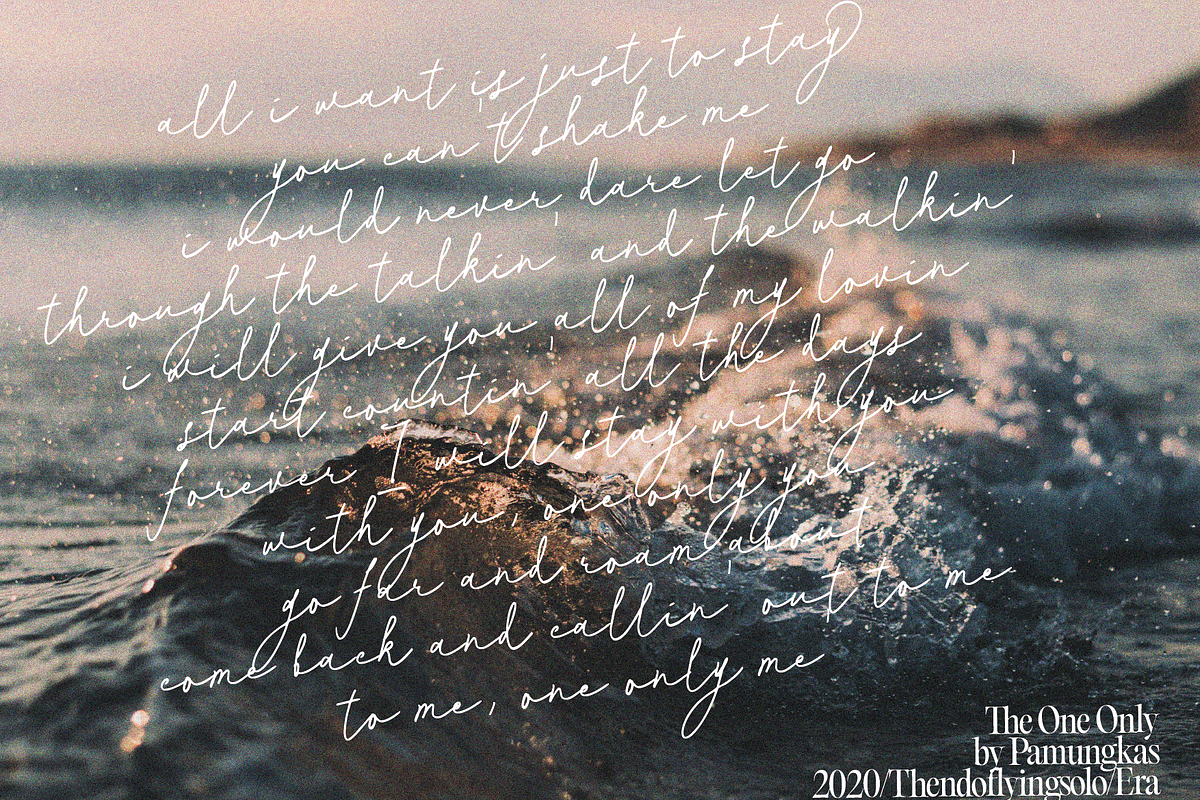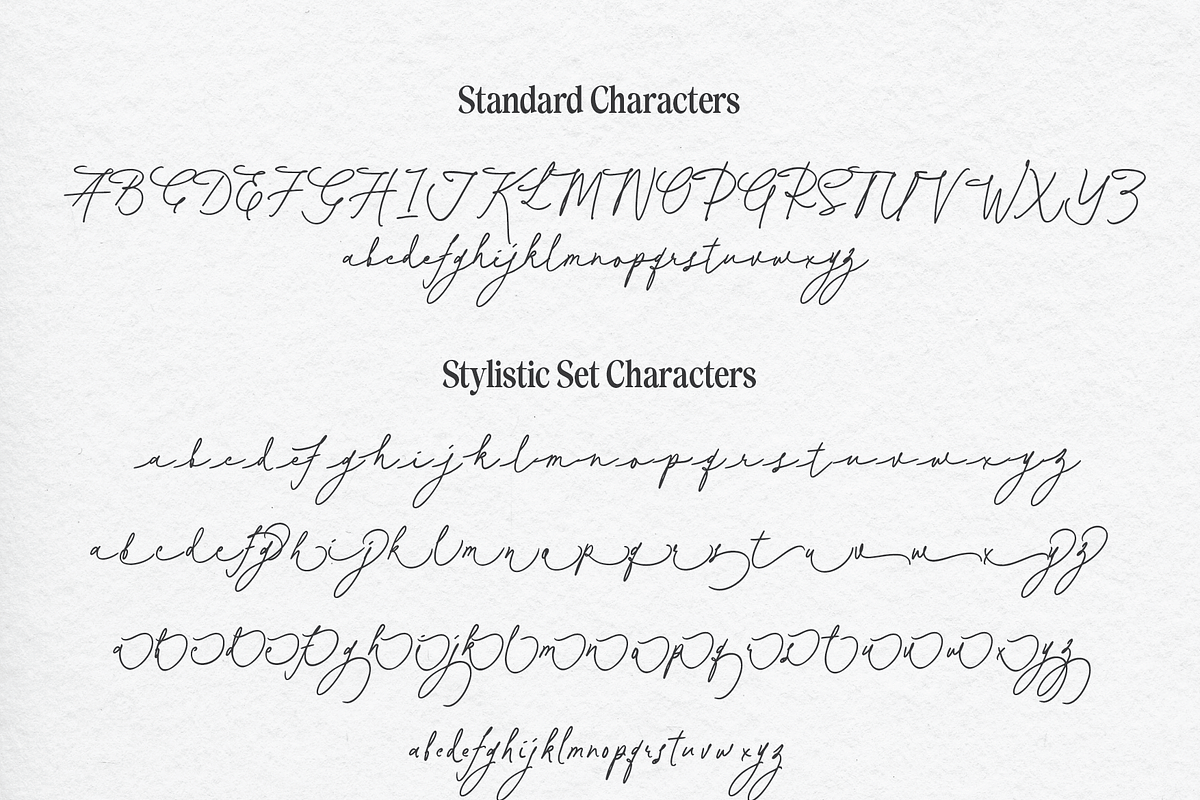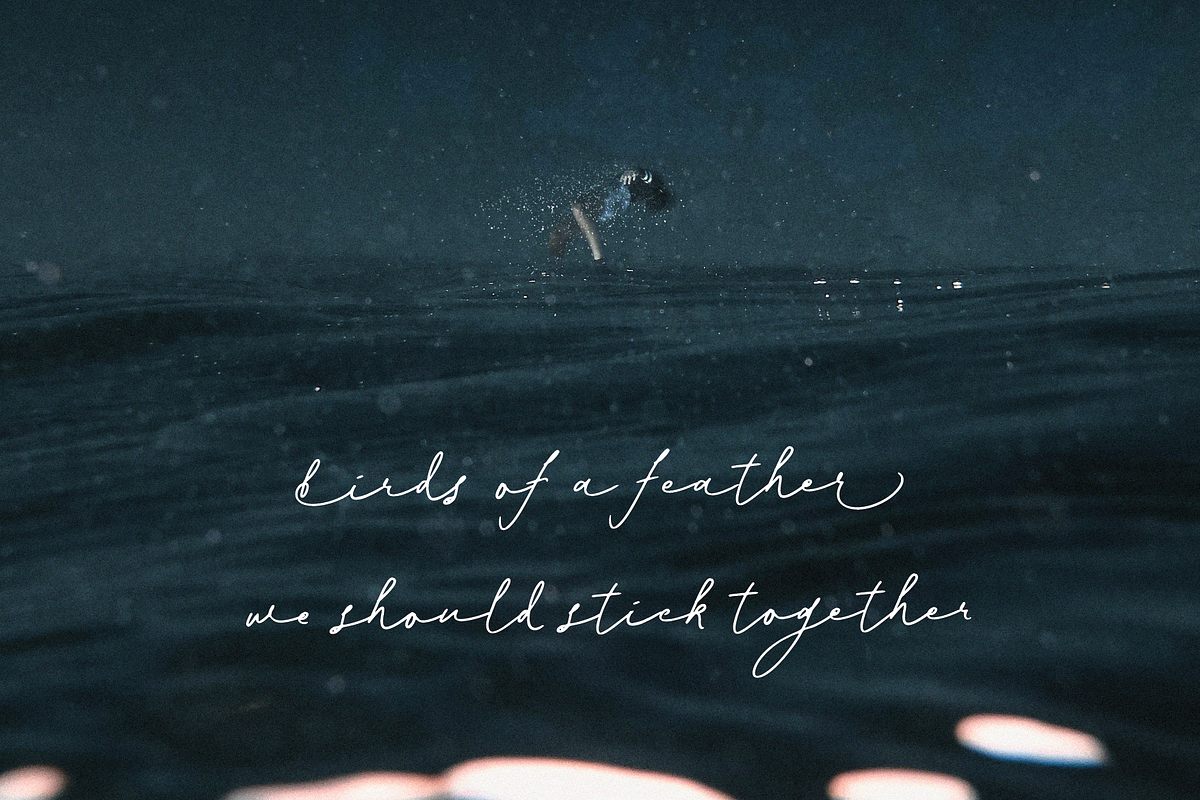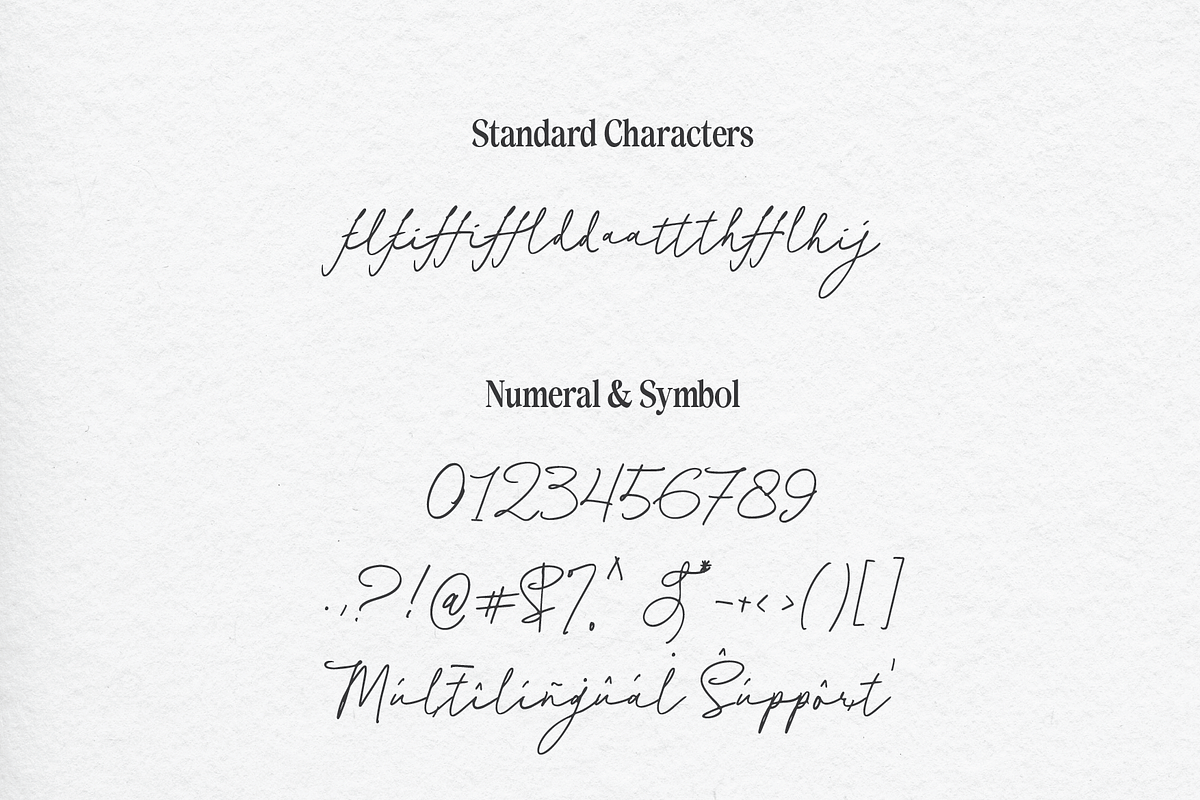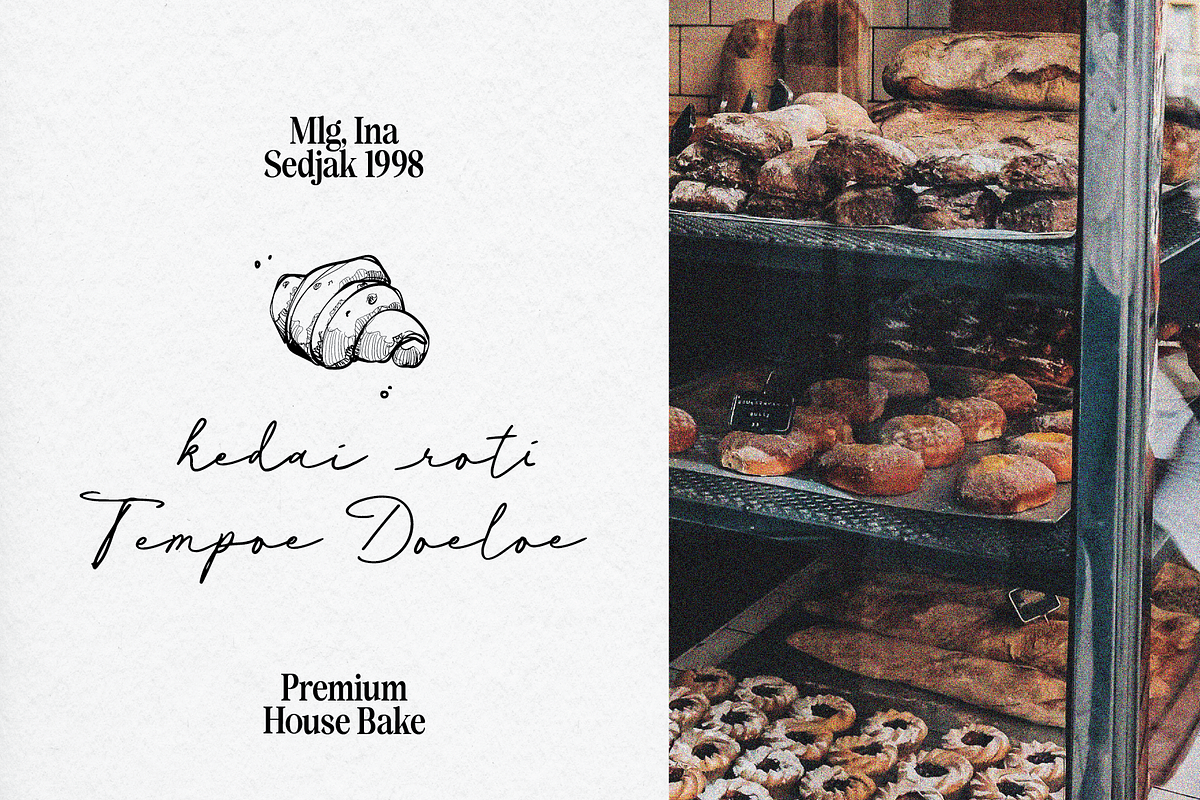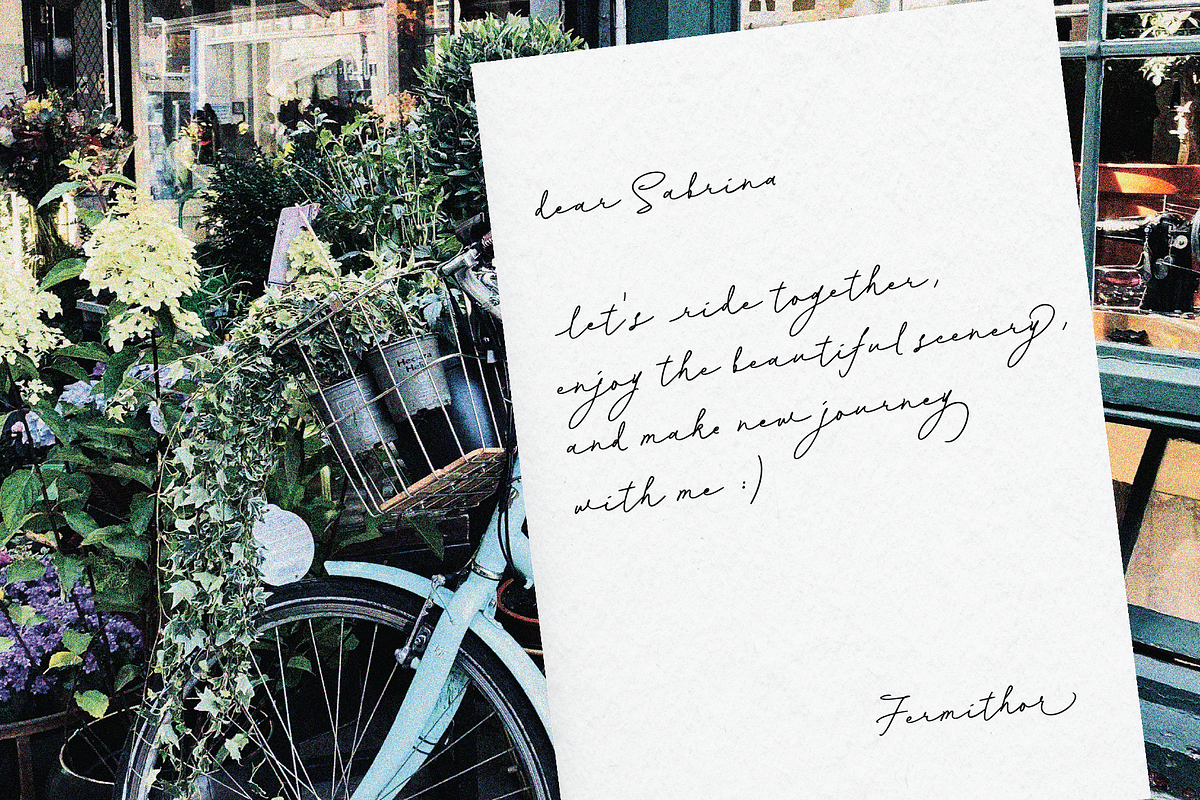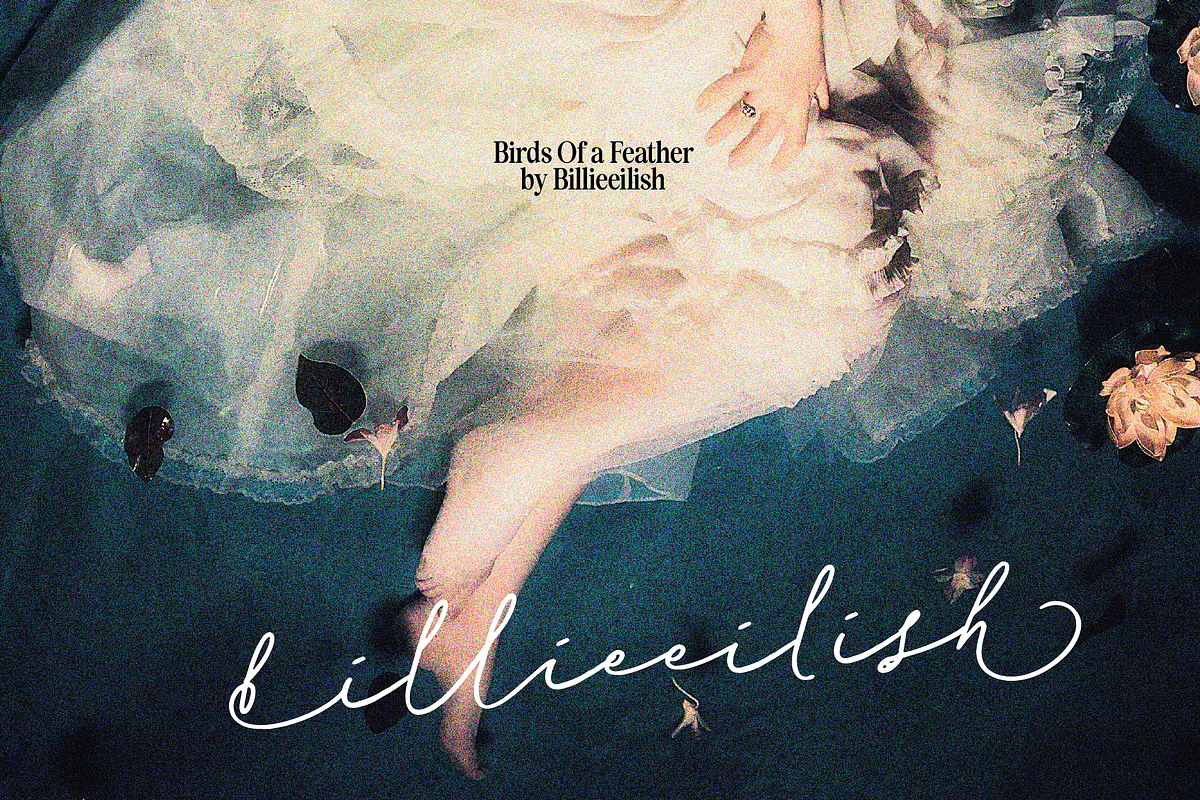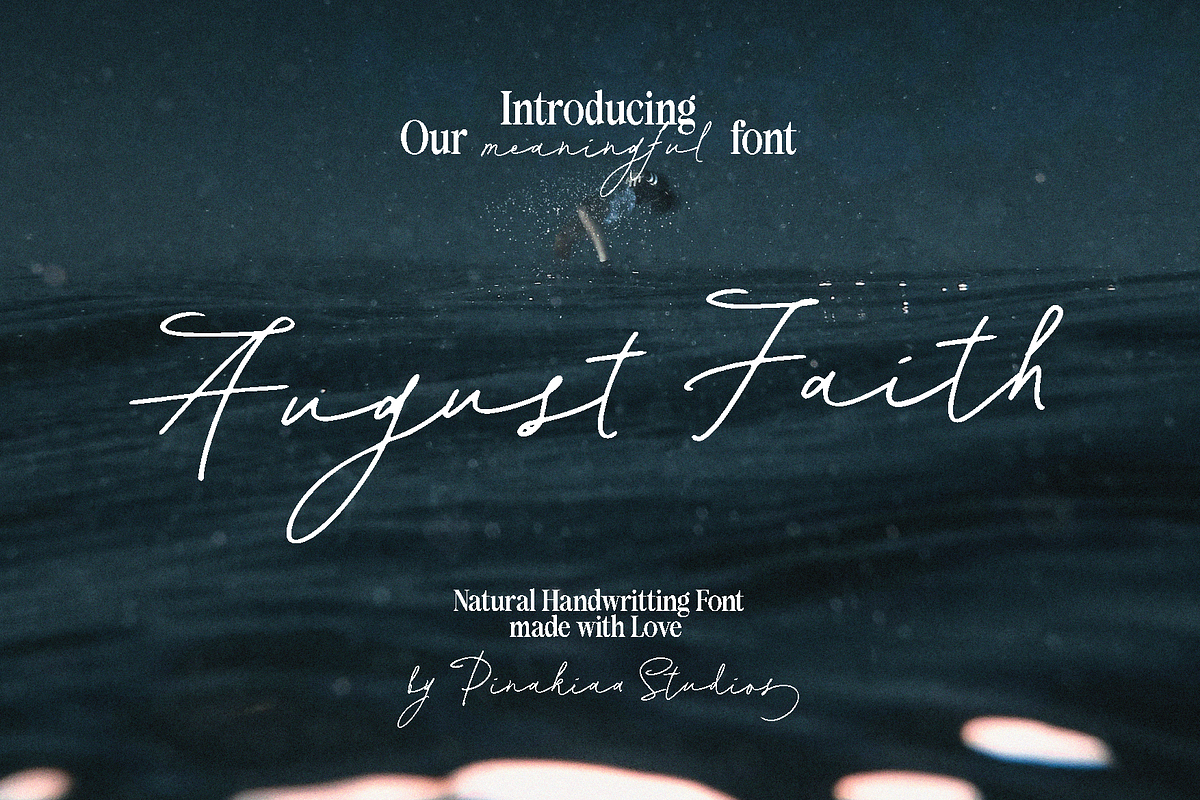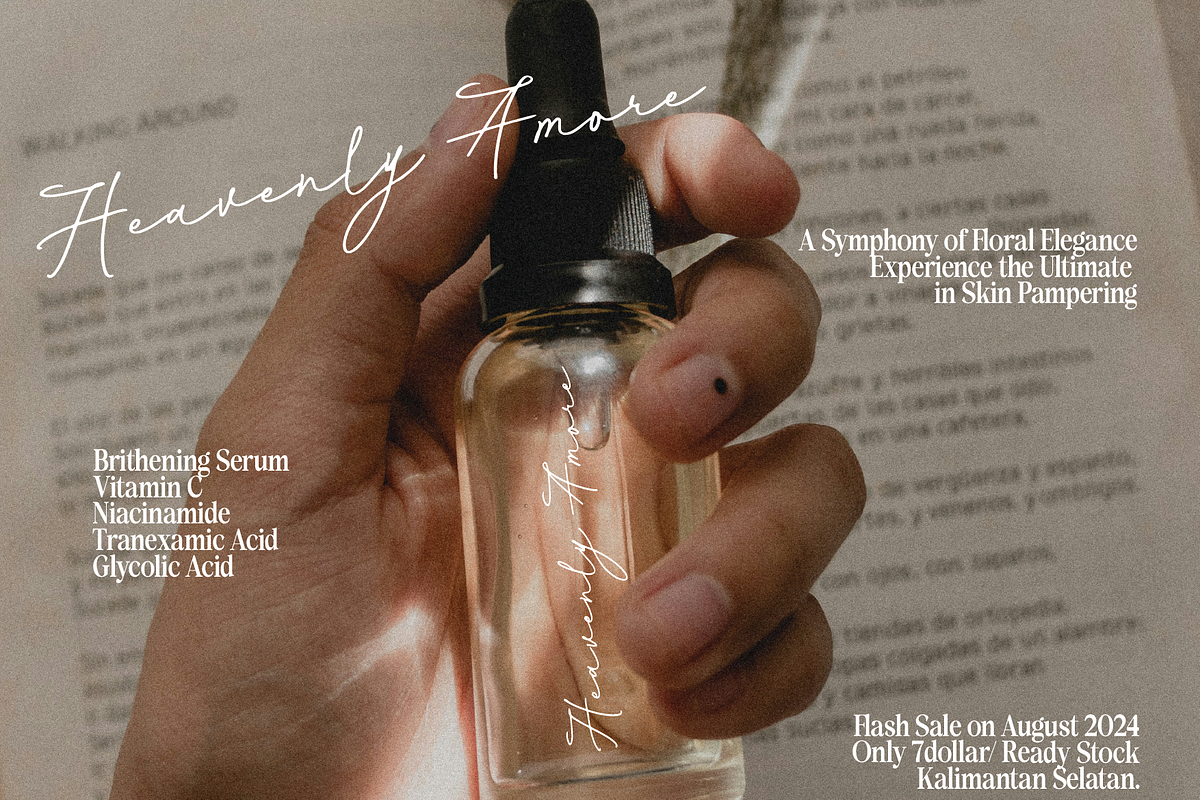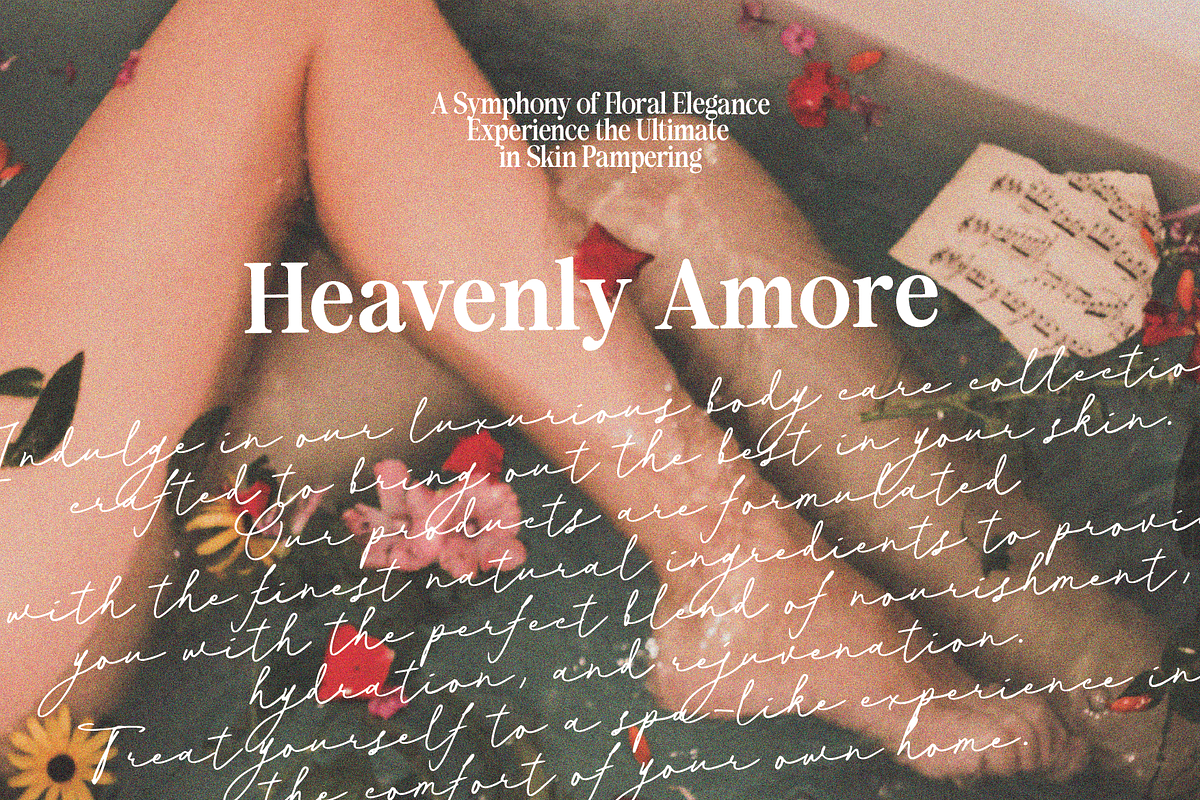
August Faith Handwritting
Hello August!
Introducing our meaning font! August Faith font is made from my handwriting, which I really like for its elegance and beauty. Initially I wanted to make a logo, but I developed it into a set of fonts. August Faith, very suitable for product design, weddings, greeting cards, quotes etc. because the basics are very similar to handwriting, giving the special impression of your own writing.
You will get 4 stylistic alternatives to make your writing beautiful. and several ligatures that connect beauty!!